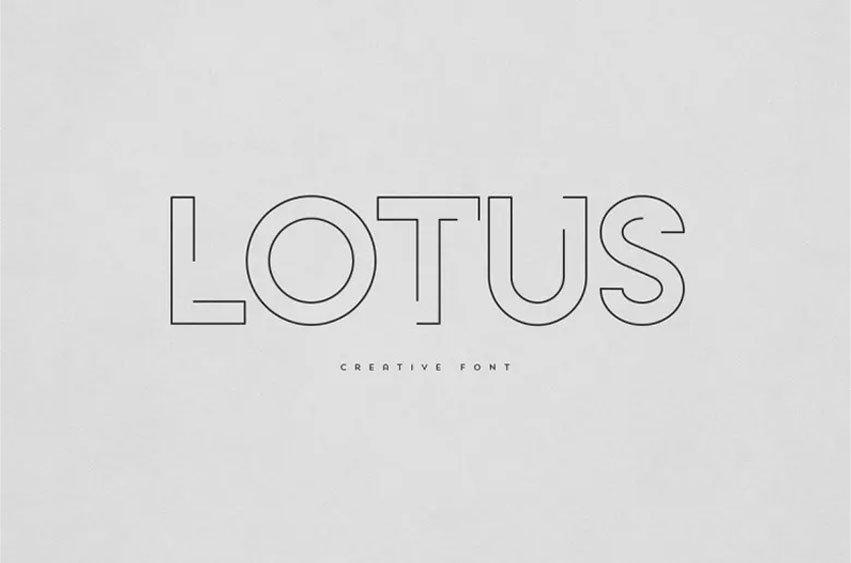
Lotus Font
Lotus Font is an elegant and flexible font capable of creating striking typographic effects! Perfect for creating striking headlines, logos, branding or simple text – Lotus It will grab anyone’s attention and set any headline apart.
Perfect for homeware designs, product packaging designs magazines headlines or simply as an attractive text overlay onto images!